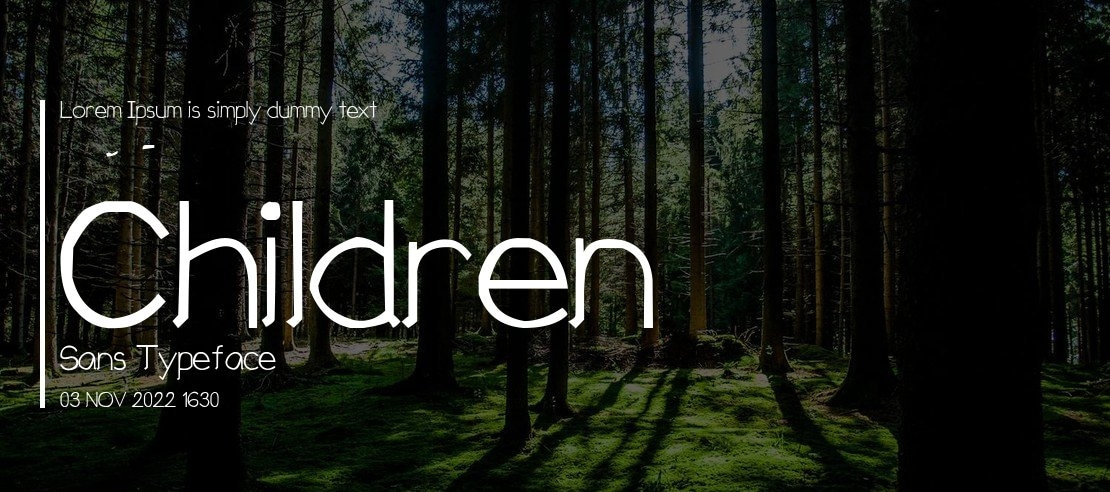
Children Sans Font Family
Children & Children Sans are my first fonts that I designed myself. It all started when I discovered a link to a website that turns your handwriting into a font. It took me two tries to make it right. Children was made first and it was very similar to children's handwriting with unaligned letters. The font itself feels very homey but it lacks legibility. More than a year later, I found a free trial for a Font Editor. I used it to make the glyphs of the font align perfectly to normal font specs. Getting quite the hang of it, I made Children Sans. I cleaned the outlines of Children and made a distinct yet similar font that seems more grown-up than Children.Five years later, I realized that Children and Children Sans has a very distinct characteristic. The capital “C” has two weird dots above it. It makes the fonts very rough and unfinished. I think it's part of its charm.